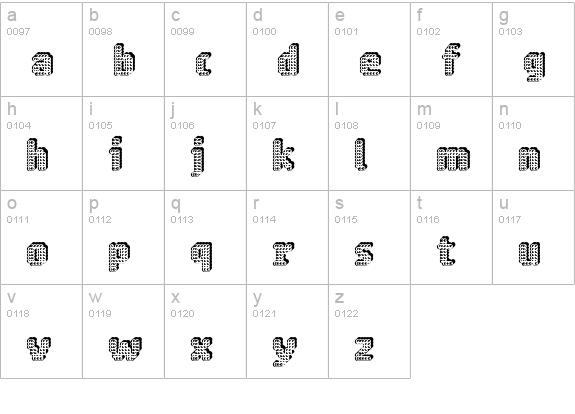
Introducing the mesmerizing Ring Matrix 3D font, a stunning typeface that combines futuristic elements with a touch of elegance. This font is designed to captivate and transport your audience into a world of technological wonder. With its three-dimensional appearance, Ring Matrix 3D font brings depth and dimension to your designs, making them truly stand out. Each letter is meticulously crafted with intricate details, creating a visually appealing and unique look. The sharp edges and sleek curves of this font give it a modern and sophisticated feel, perfect for projects that require a contemporary touch. What sets Ring Matrix 3D font apart is its versatility. Whether you're designing a poster, logo, or website, this font adapts seamlessly to any creative endeavor. Its clean lines and balanced proportions make it easily readable, while its distinct style adds an element of excitement and intrigue. And the best part? Ring Matrix 3D font is available for free download at FontsMarket.com. This means you can enhance your designs without breaking the bank. With just a few clicks, you can access this remarkable font and start transforming your projects into visually stunning masterpieces. So why wait? Download Ring Matrix 3D font today and unleash your creativity. Elevate your designs to new heights with this captivating and versatile typeface. Whether you're a graphic designer, a marketer, or a creative professional, this font is sure to leave a lasting impression on your audience. Don't miss out on this incredible opportunity to add a touch of futuristic elegance to your next project. Get Ring Matrix 3D font now and let your imagination run wild!